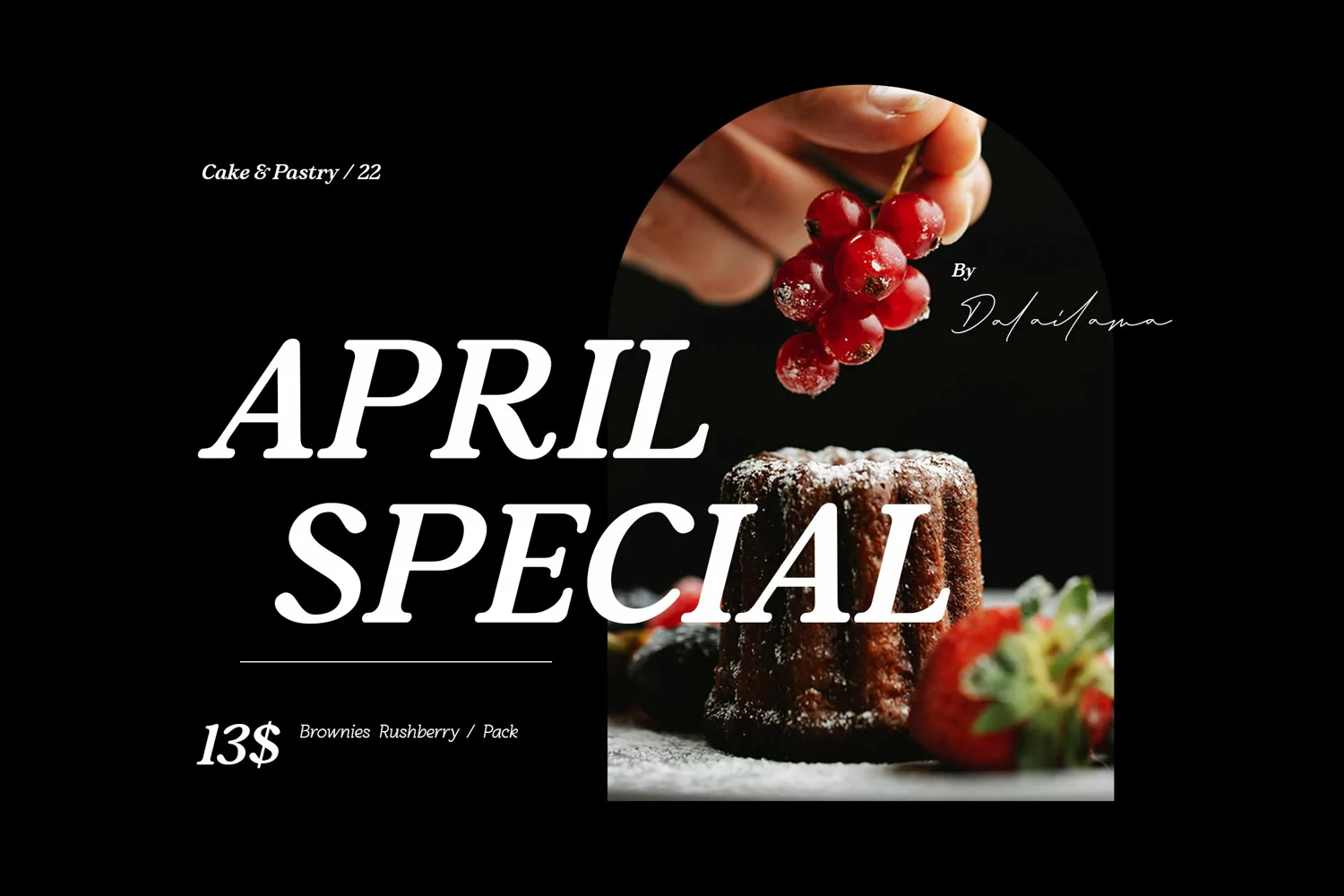
Fresh and Roast - Classic Retro Bold Italic Serif - Wild Adventure - Coffee Cafe Display font
Fresh and Roast comes with some ligatures, so you can combine it to make a perfect typography design. Suitable for any design needs : logo and brand, coffee cafe branding, modern advertising design, vintage garage design, adventure / mountain hiking brand, animation or movie, logos, retro poster quote, book / novel cover Title, editorial design, website / blog, card, and any Italic hand-lettered needs.